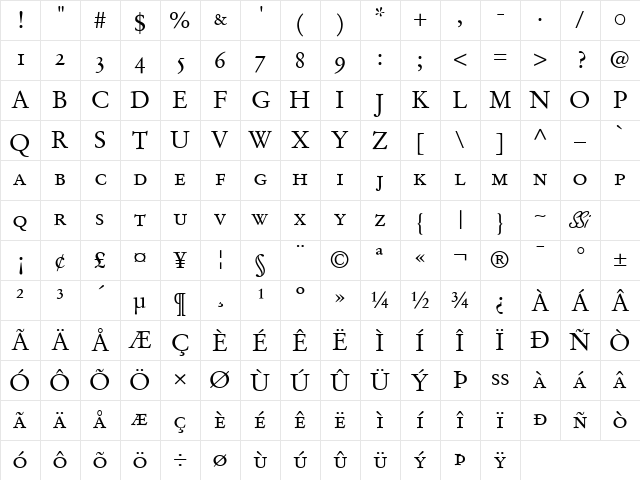
Complete Deutch Garamond OldStyle SSi Small Caps glyph index. Displaying only characters natively supported by Deutch Garamond OldStyle SSi Small Caps font.
Deutch Garamond OldStyle SSi carries the refined structure of traditional serif typography, with bracketed terminals and considered proportions that communicate credibility and craft.